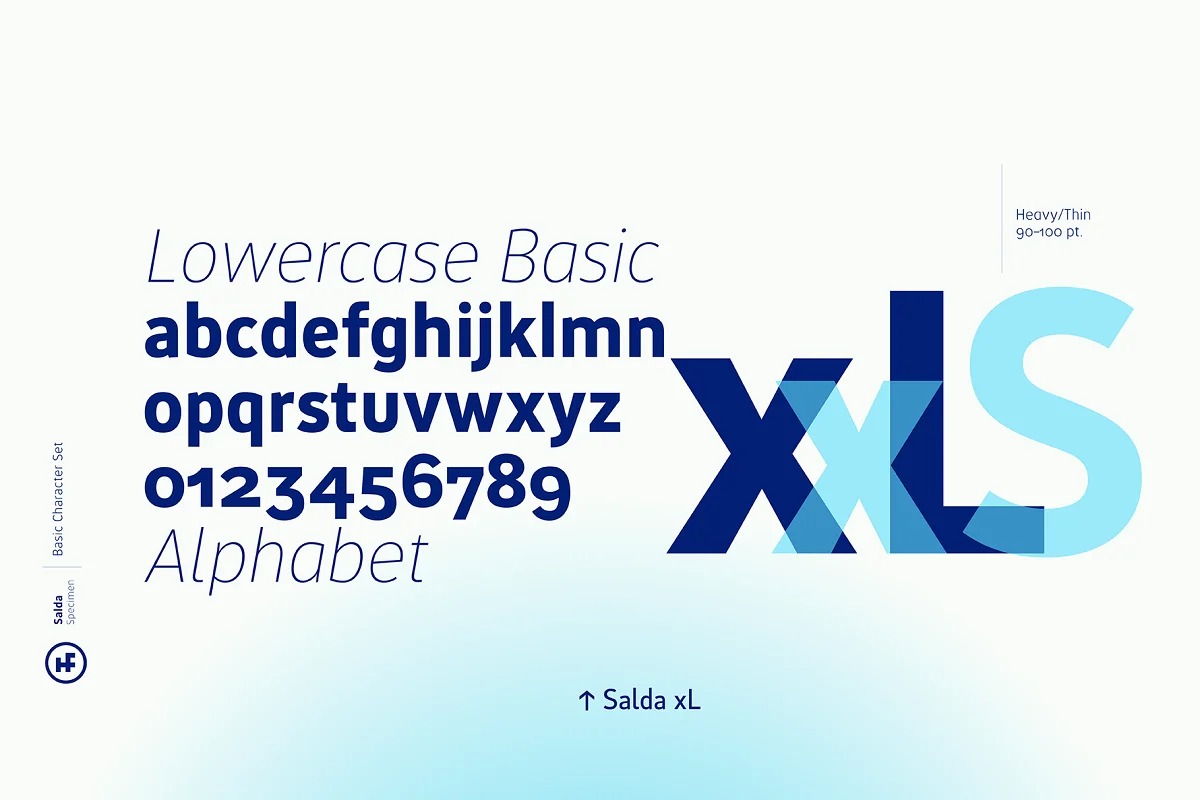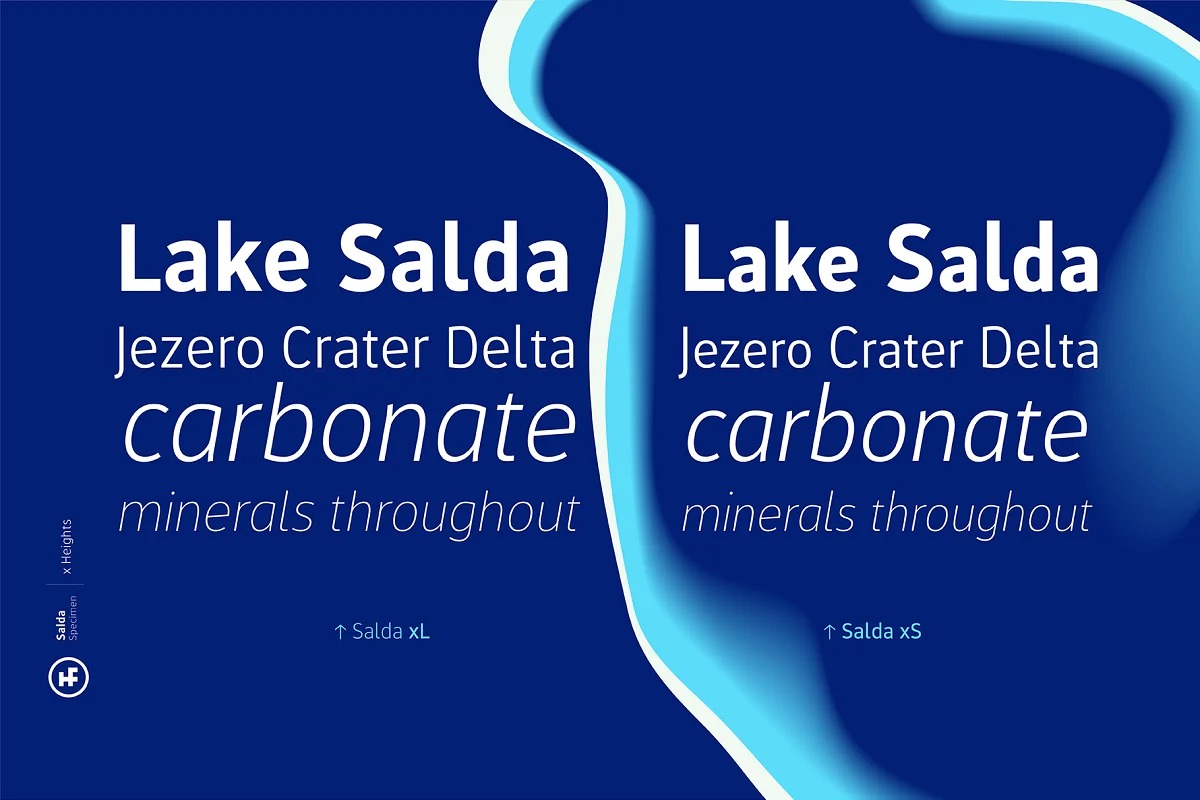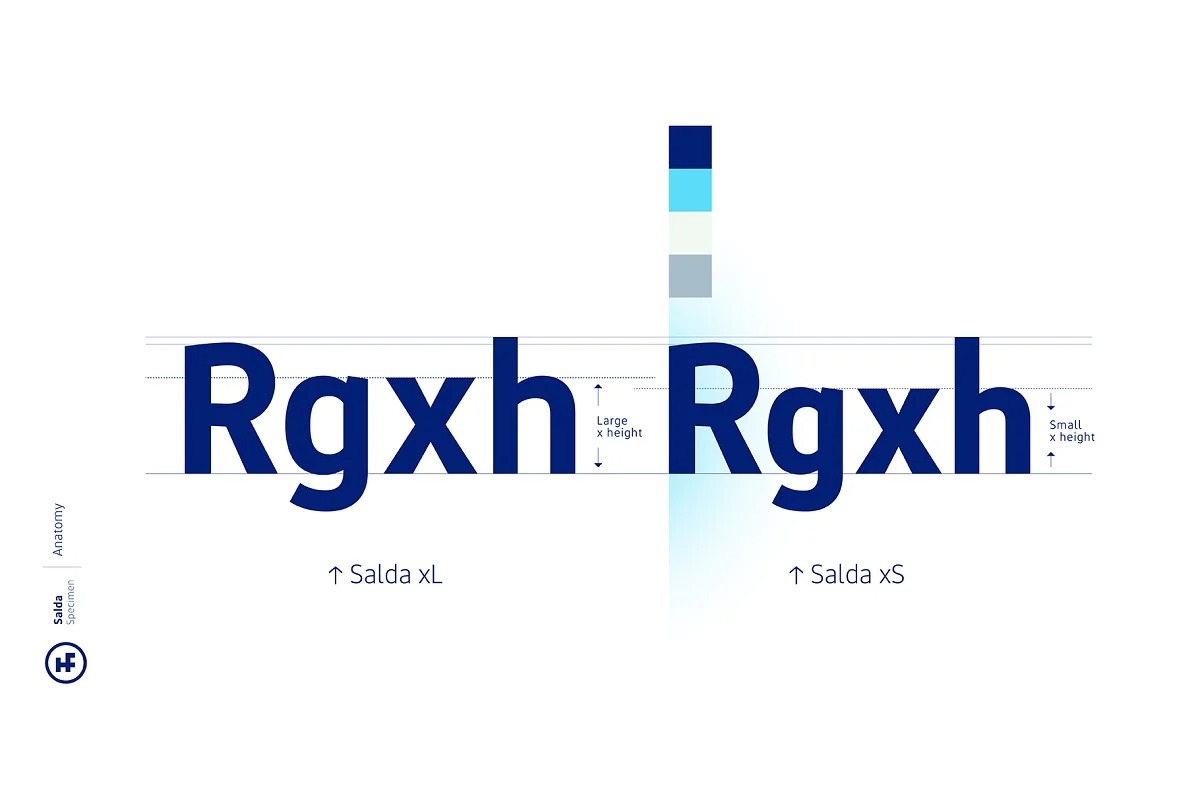
Salda Sans Serif Font
This font is a multi-functional super family with modernist roots. It has wide usages with its slight narrow structure, sharp and clean lines, humanist touches. It provides clean and smooth visuality in vertical screens, mobile applications and block texts.
With its two different x heights (xL-xS), it offers wealth of use in body texts and titles. It consists of totally 40 styles. Ideal for editorial designs, packaging, corporate identity, brand, mobile apps, web and desktop usages.